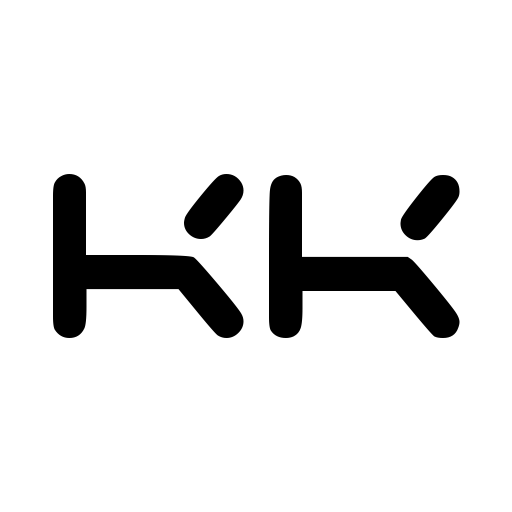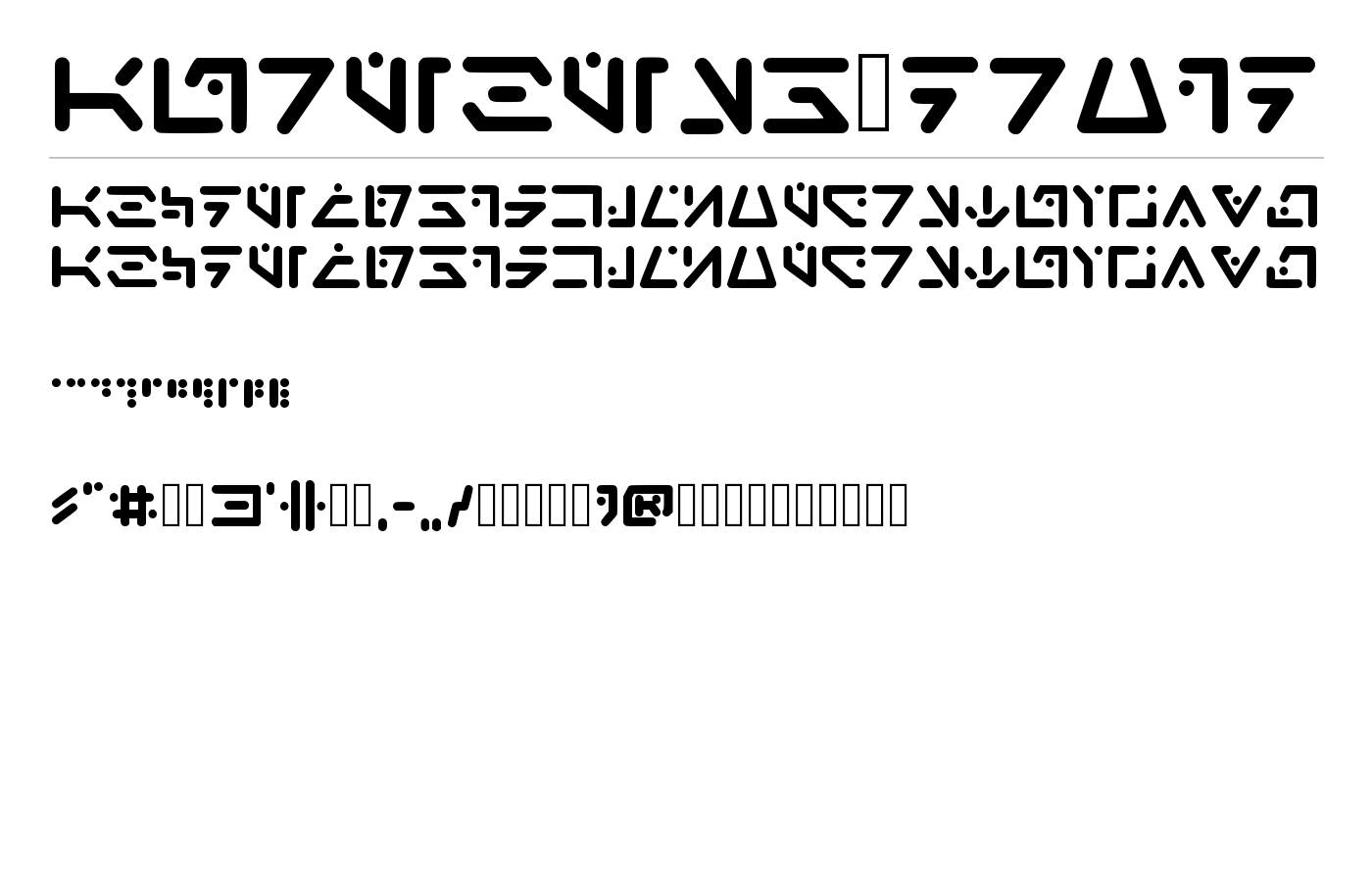
Aurebesh_droid is a distinctive, futuristic sans serif font that features geometric, blocky letterforms with rounded corners, evoking a sci-fi aesthetic inspired by robotic or alien scripts. With consistent stroke weight and tight spacing, it emphasizes a clean, technical feel perfect for technology-themed designs, gaming interfaces, or science fiction branding. This font works best for headlines, logos, or decorative usage where a modern and otherworldly vibe is desired.
Aurebesh_droid Font